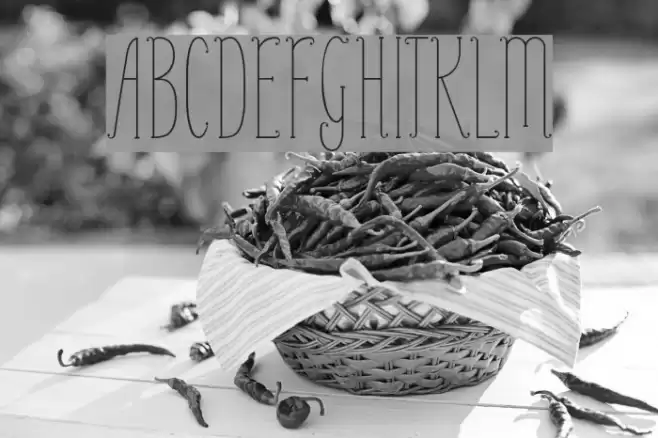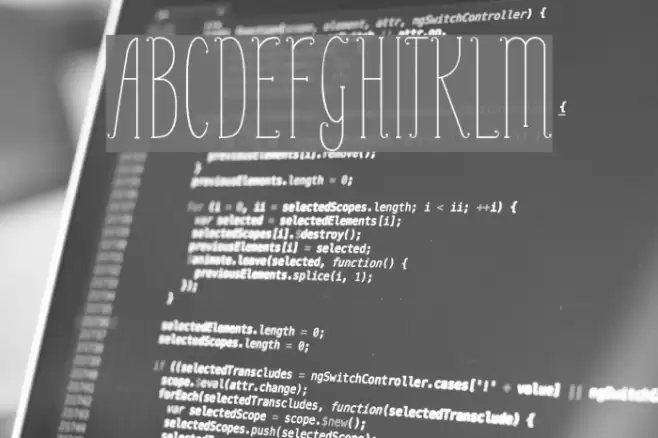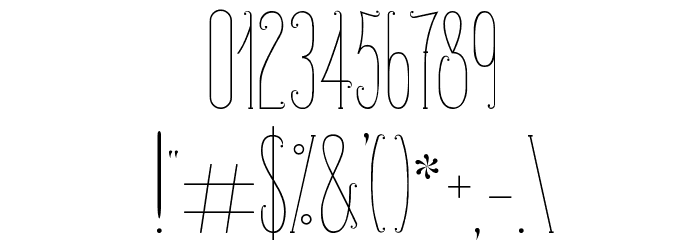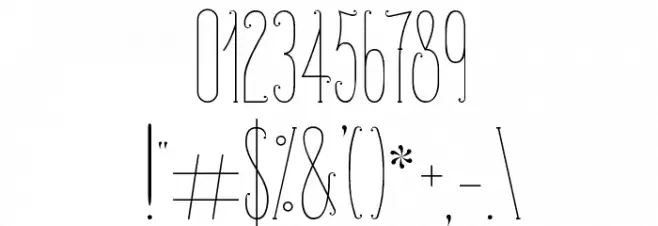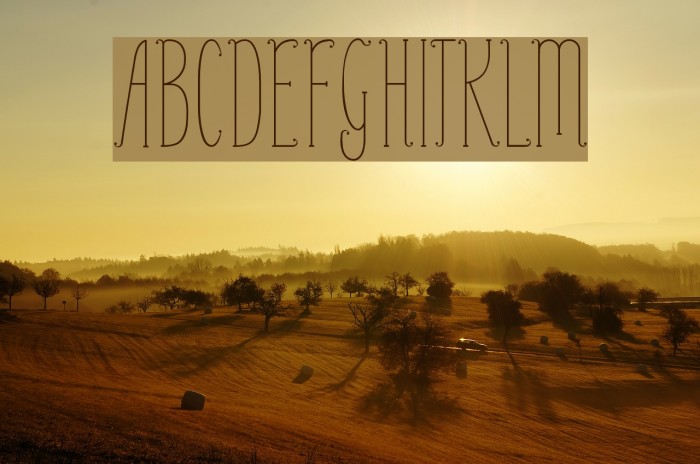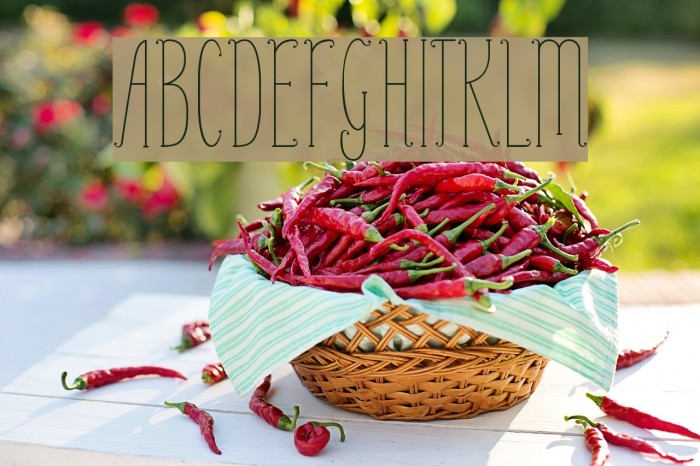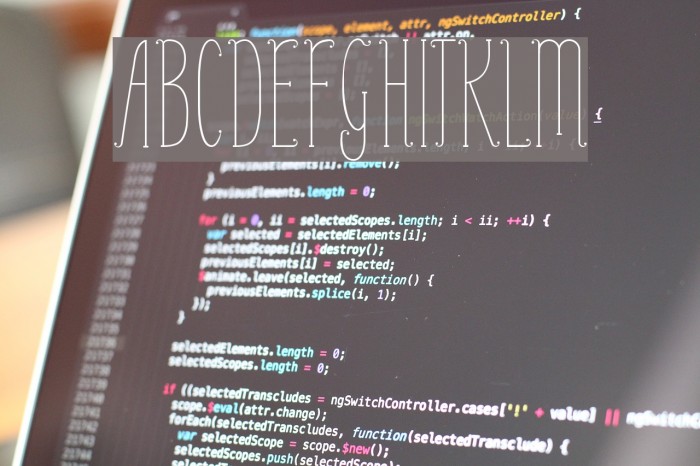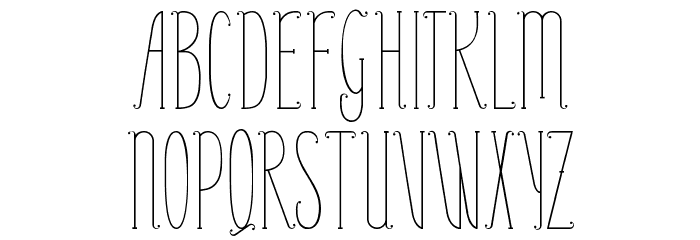
PerleDeRosee-Condensed Font
PerleDeRosee-Condensed Description
This font features an elegant and elongated design with a distinct condensed style. The characters are tall and slender, with a delicate and sophisticated appearance. The strokes are thin, and the terminals are slightly curved, adding a touch of elegance. The uppercase and lowercase letters maintain a consistent height, contributing to a uniform look. The numerals are similarly styled, ensuring coherence across different text elements. Special characters are included, each designed with the same attention to detail. This font's refined and stylish nature makes it suitable for projects that require a touch of class and sophistication.
An elegant, condensed font with tall, slender characters and delicate curves from Uncategorized fonts.
- Proposed Projects: Ideal for wedding invitations, luxury branding, high-end product packaging, and editorial design.
- Overall Style: Elegant, Sophisticated
- Use Case: Headlines, Invitations, Branding